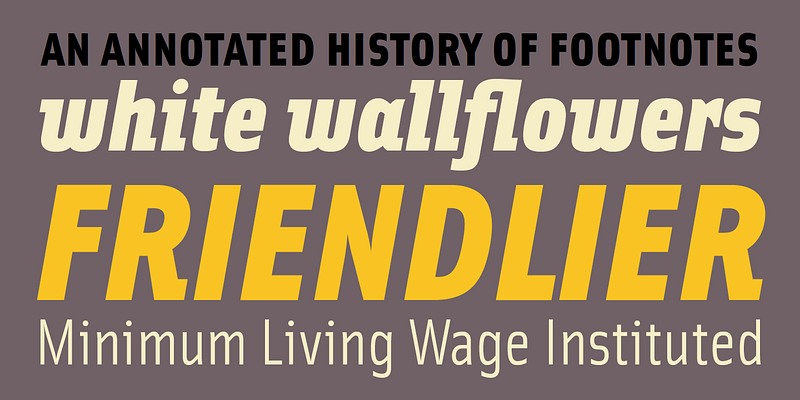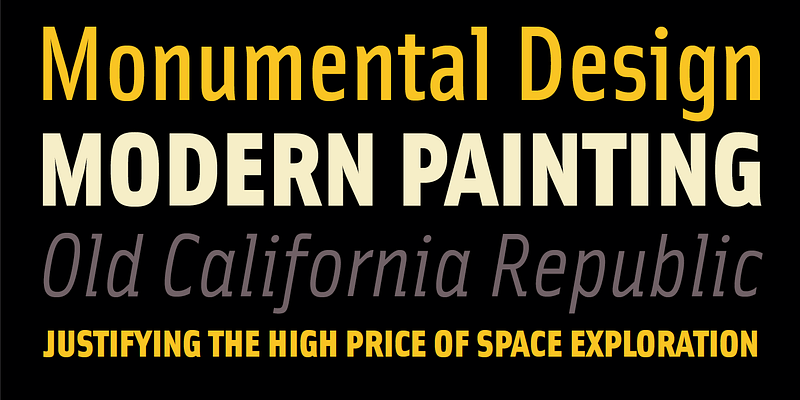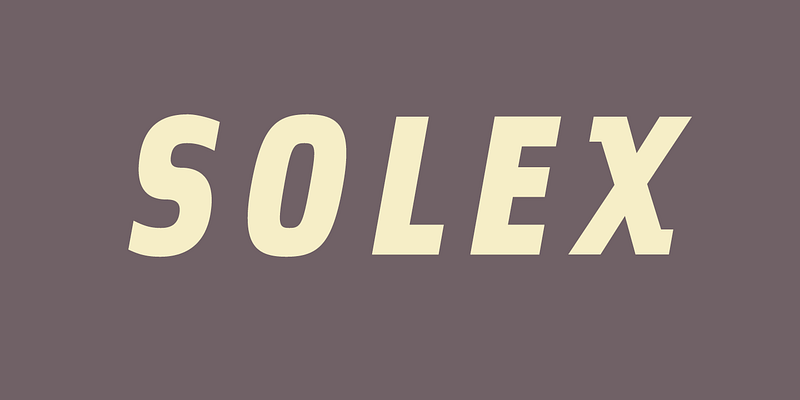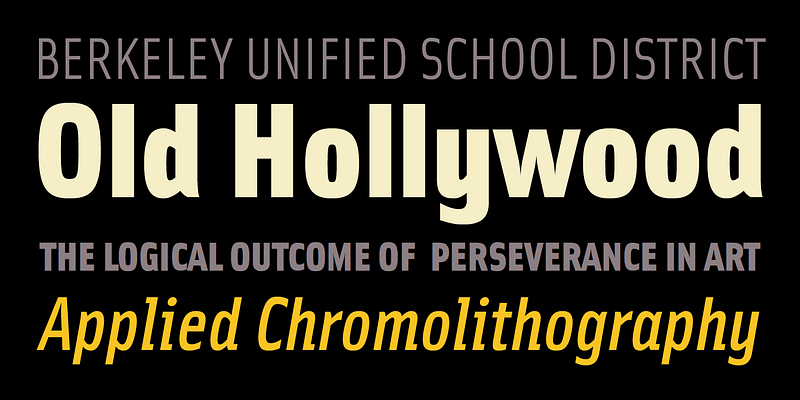
Solex is a studious exploration of the industrial sans serif genre. It marks an intersection of ideas that grew from two or three separate periods of development over the past hundred years.
The general source is a class of slightly condensed, rectangular, grotesque types made for newspaper ads and handbills from the turn of the 19th century such as Alternate Gothic (1903), Standard Gothic (1896) and News Gothic (1908).
The specific source of inspiration for Solex is Bauer Topic (aka, Steile Futura) designed in 1950 by Paul Renner, who also designed the larger and more influential Futura series more than 20 years earlier. In Solex, Licko has preserved the lone foot serif introduced by Renner at the base of many italic characters: a, d, h, k, l, m, n, u; and has added others where Renner did not: i, x. Licko has also introduced a head serif on letters where Renner put none: i, l, x. The added head serifs give Solex a trait often associated with monospaced fonts and typewriter faces, and give the i, l, and x two apiece.
Solex also revisits postmodern themes seen in Erik Spiekermann’s digital milestone, Meta Sans, and its cousin, Officina Sans. In both Licko’s and Spiekermann’s designs we find a measure of rigidity, linearity, and noncalligraphic monotone. Indeed, Solex even shows faint signs of going in the direction of Matthew Carter’s series, Bell Centennial, with respect to the narrow (almost trapezoidal) bowls, slimmed interior strokes, and pronounced traps. All the same, Solex has a look of its own in text settings, and it will likely find a place for itself among numerous other condensed grotesques in the years ahead.